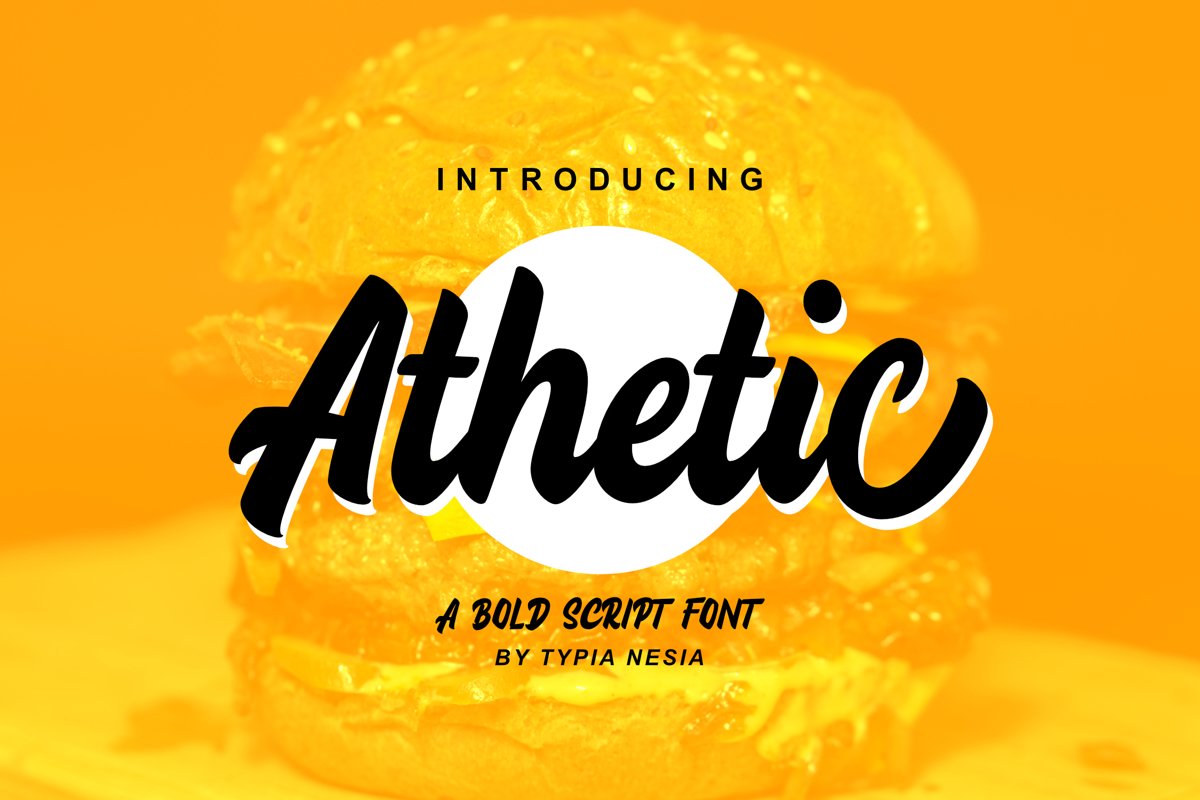
Athetic is a Clean and Bold Sript Display. Prefect for any Calligraphy / Lettering Logo Font
Suitable for any design needs : logo, branding, modern advertising design, logos, poster quote, book / cover Title, editorial design, website / blog, card, custom mug, pillow, t-shirts, and any hand-lettered needs.
* Athetic (.ttf + .otf) comes with upper and lowercase Standard Characters, Punctuation, Numerals. And other Glyphs variation of the OpenType features such as Standard Ligature, Stylistic Alternate, Swash and Stylistic Set.
* Includes a range of multilingual characters.
Athetic